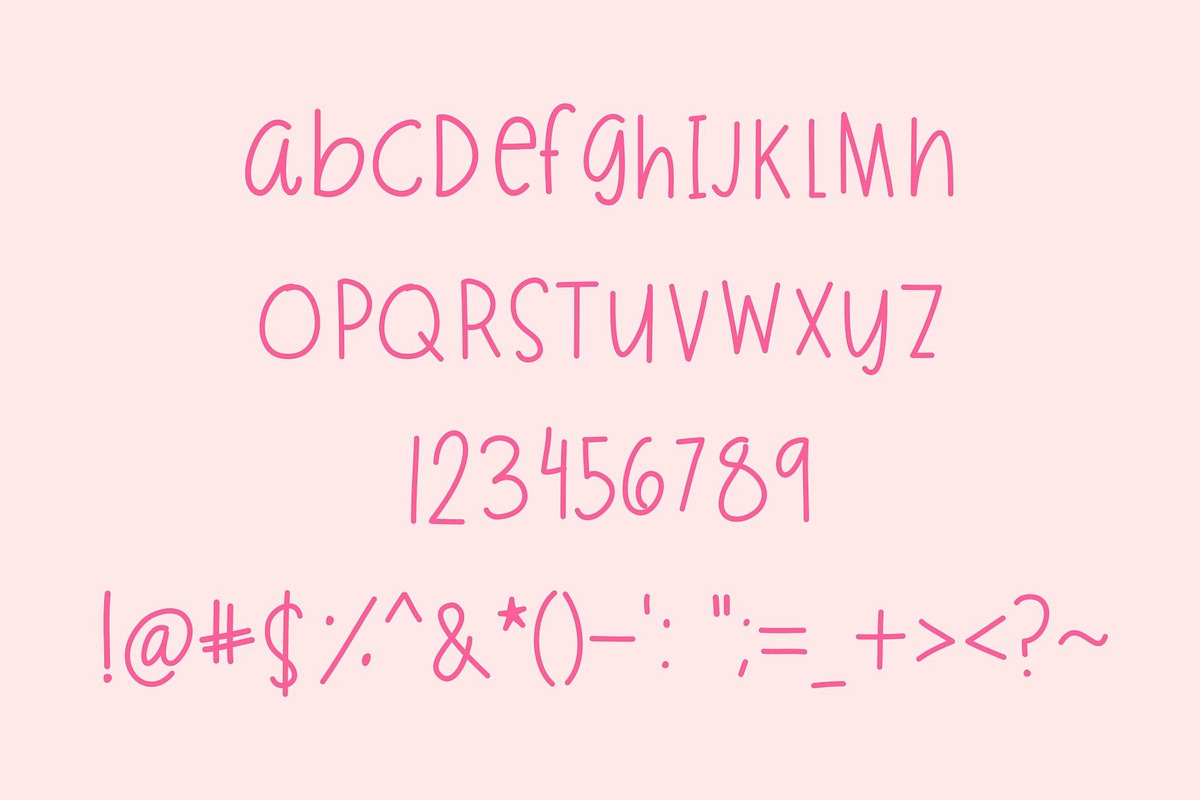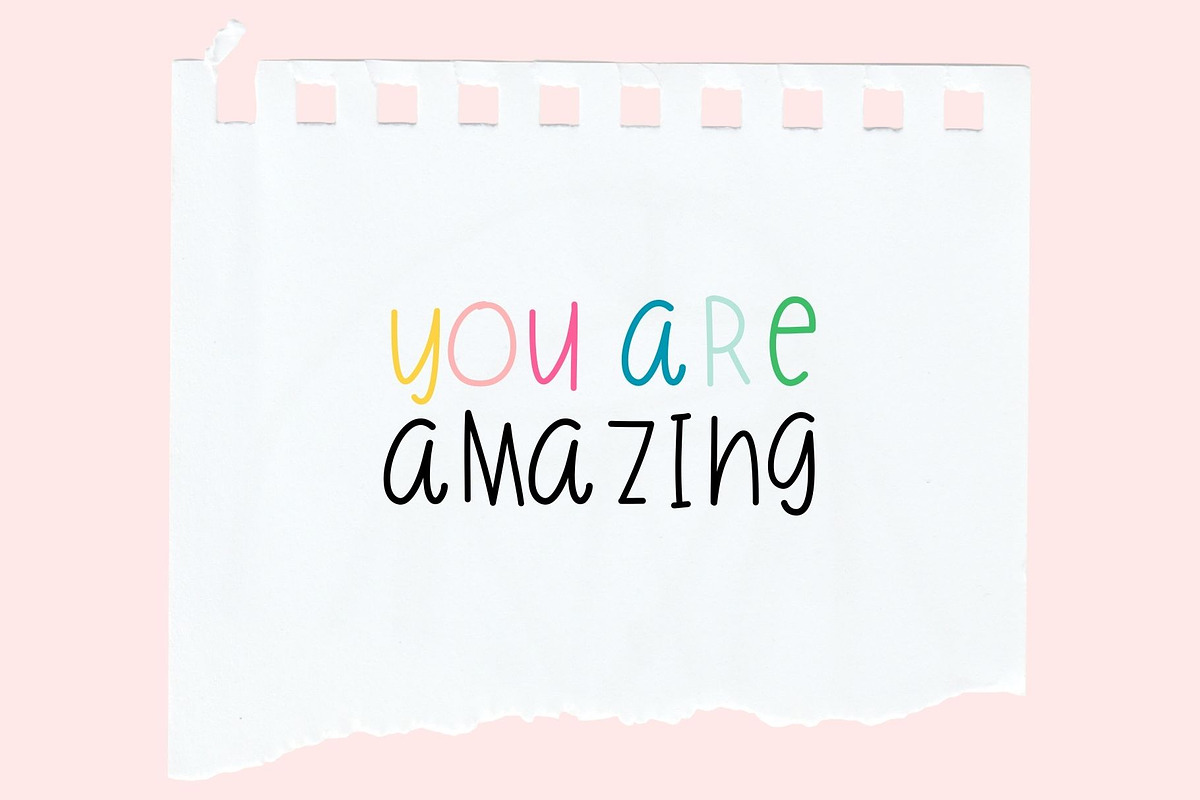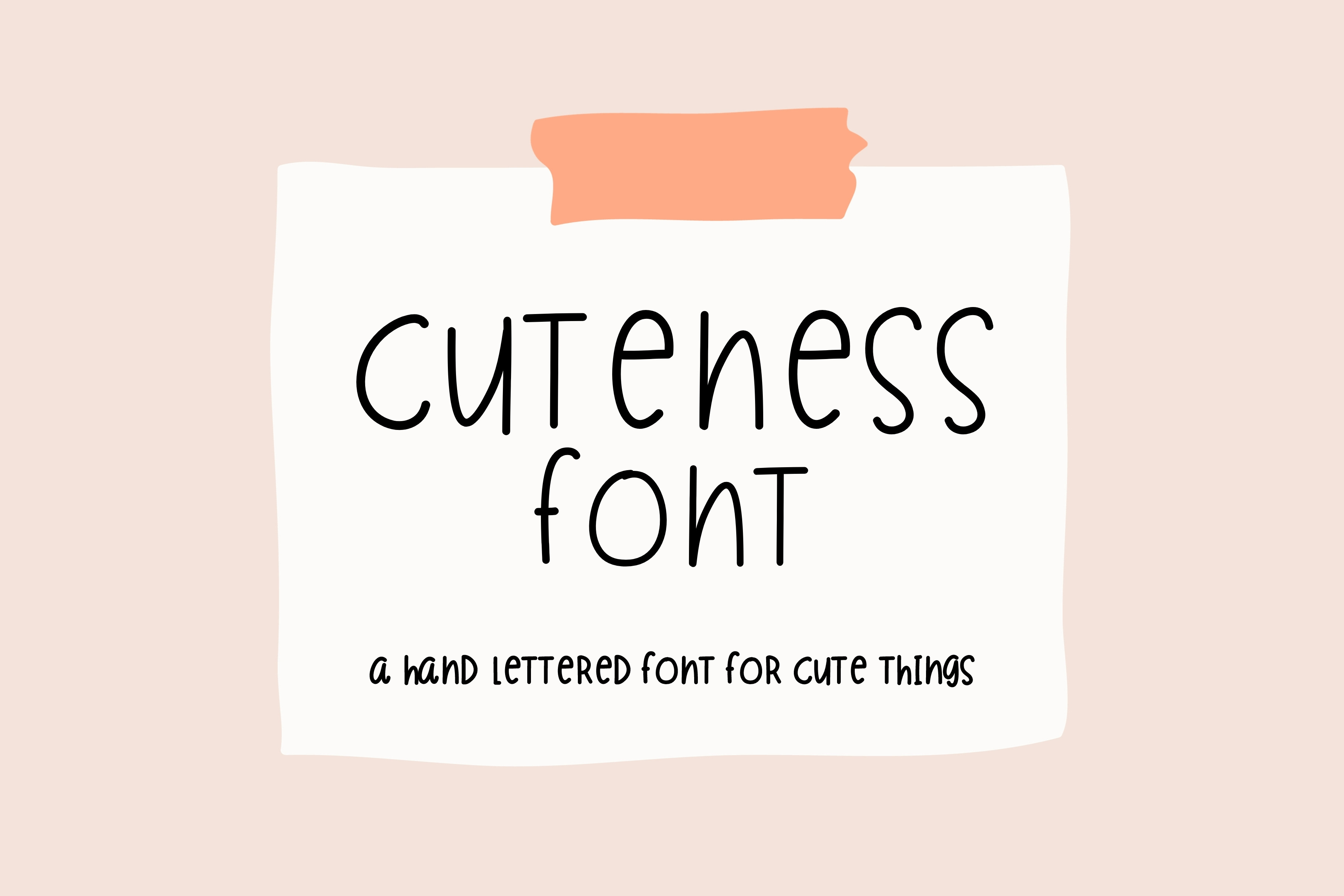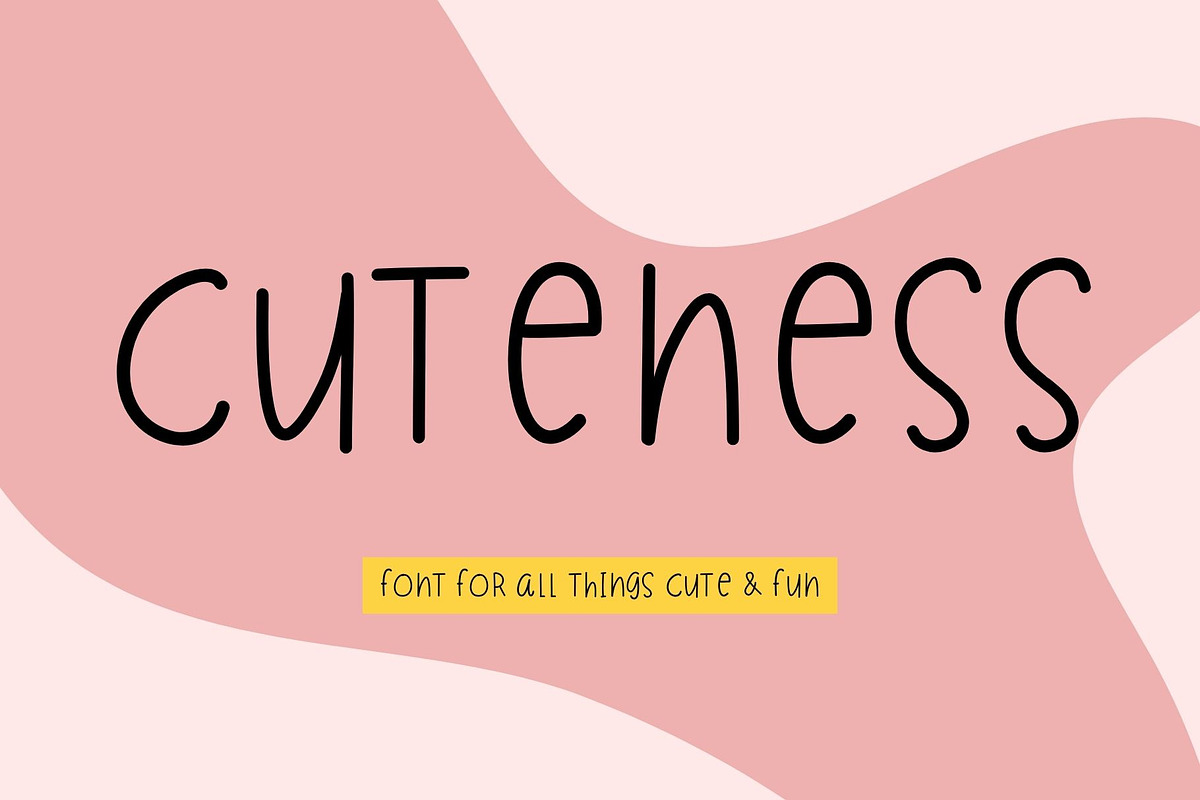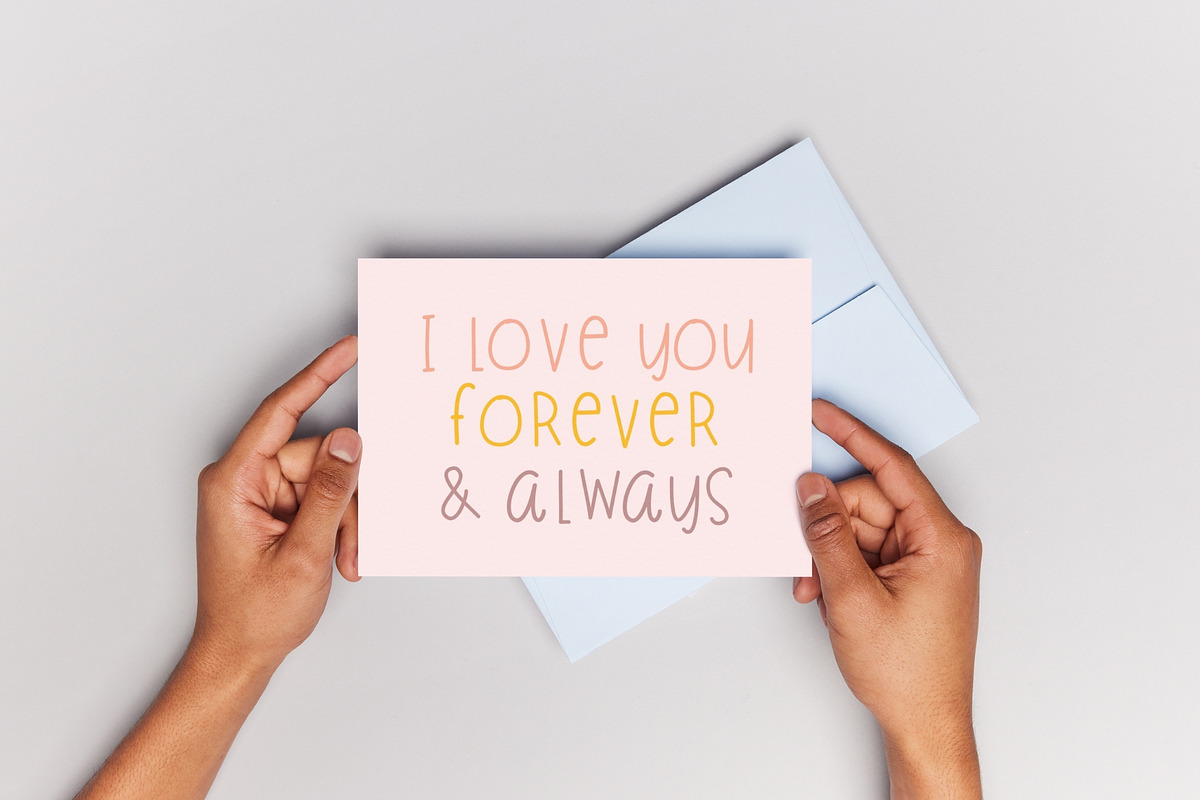
CUTENESS | a fun handwritten font
All the cuteness in one font. A mix of upper and lower case.
Font Includes Full Alphabet, Numbers, Punctuation & Symbols.